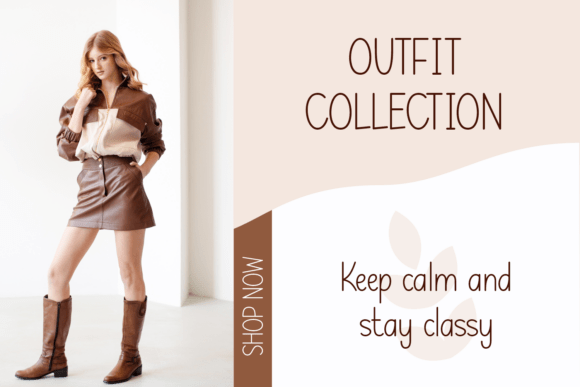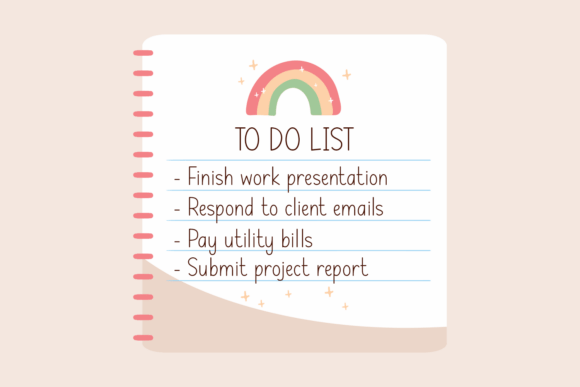
Introducing Alphabet Solution Font: The Ultimate Choice for a Warm and Personal Touch
In the world of typography, fonts play a crucial role in conveying the tone and personality of a message. Whether you’re a designer, crafter, or simply someone who loves to add a personal touch to their projects, finding the right font can make all the difference. This is where Alphabet Solution Font comes in – a fun and charming handwritten font that is sure to capture your heart.
What Makes Alphabet Solution Font So Special?
Alphabet Solution Font is characterized by its clean lines and rounded, friendly letterforms. This unique combination gives the font a cute and approachable vibe, making it suitable for a wide range of applications that aim for a warm, personal, or lighthearted feel. The font’s clean lines ensure that your text remains clear and easy to read, while the rounded letterforms add a touch of playfulness and whimsy.
One of the best things about Alphabet Solution Font is its versatility. Whether you’re working on a craft project, creating digital designs, making presentations, or designing greeting cards, this font is sure to become your go-to choice. Its warm and friendly tone makes it perfect for:
- Craft projects: Add a personal touch to your DIY crafts, such as scrapbooking, card making, or woodworking projects.
- Digital design: Use Alphabet Solution Font in your digital designs, such as social media graphics, blog posts, or website headers.
- Presentations: Add a touch of personality to your presentations, making them more engaging and fun.
- Greeting cards: Create beautiful and heartfelt greeting cards for special occasions.
Why You’ll Love Alphabet Solution Font
So, what makes Alphabet Solution Font so lovable? Here are just a few reasons why you’ll fall in love with this charming font:
- Easy to read: Despite its playful tone, Alphabet Solution Font remains clear and easy to read, making it perfect for both headings and body text.
- Versatile: Use it for a wide range of projects, from crafts to digital designs, and everything in between.
- Customizable: Experiment with different colors, sizes, and styles to make the font your own.
- Fun and playful: Add a touch of whimsy and personality to your projects with this charming font.
Tips for Using Alphabet Solution Font
To get the most out of Alphabet Solution Font, here are a few tips to keep in mind:
- Pair it with other fonts: Experiment with pairing Alphabet Solution Font with other fonts to create a unique and interesting contrast.
- Play with colors: Try out different colors to match the tone and personality of your project.
- Vary font sizes: Use different font sizes to create visual interest and hierarchy in your design.
Alphabet Solution Font is a fun and charming handwritten font that is sure to become your new favorite. With its clean lines, rounded letterforms, and versatile nature, it’s perfect for a wide range of projects that aim for a warm, personal, or lighthearted feel. Whether you’re a designer, crafter, or simply someone who loves to add a personal touch to their projects, Alphabet Solution Font is a must-have in your font collection.